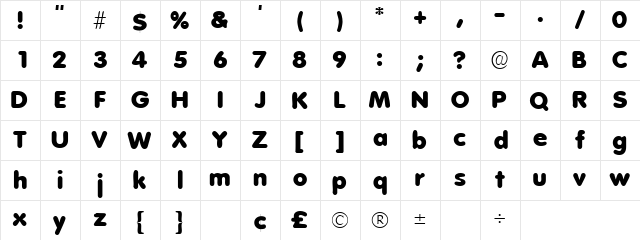
AderaSSK Regular
Design Context for AderaSSK Typeface
AderaSSK offers clean, dependable letterforms without strong stylistic allegiance, making it a practical choice for designers who need flexibility.